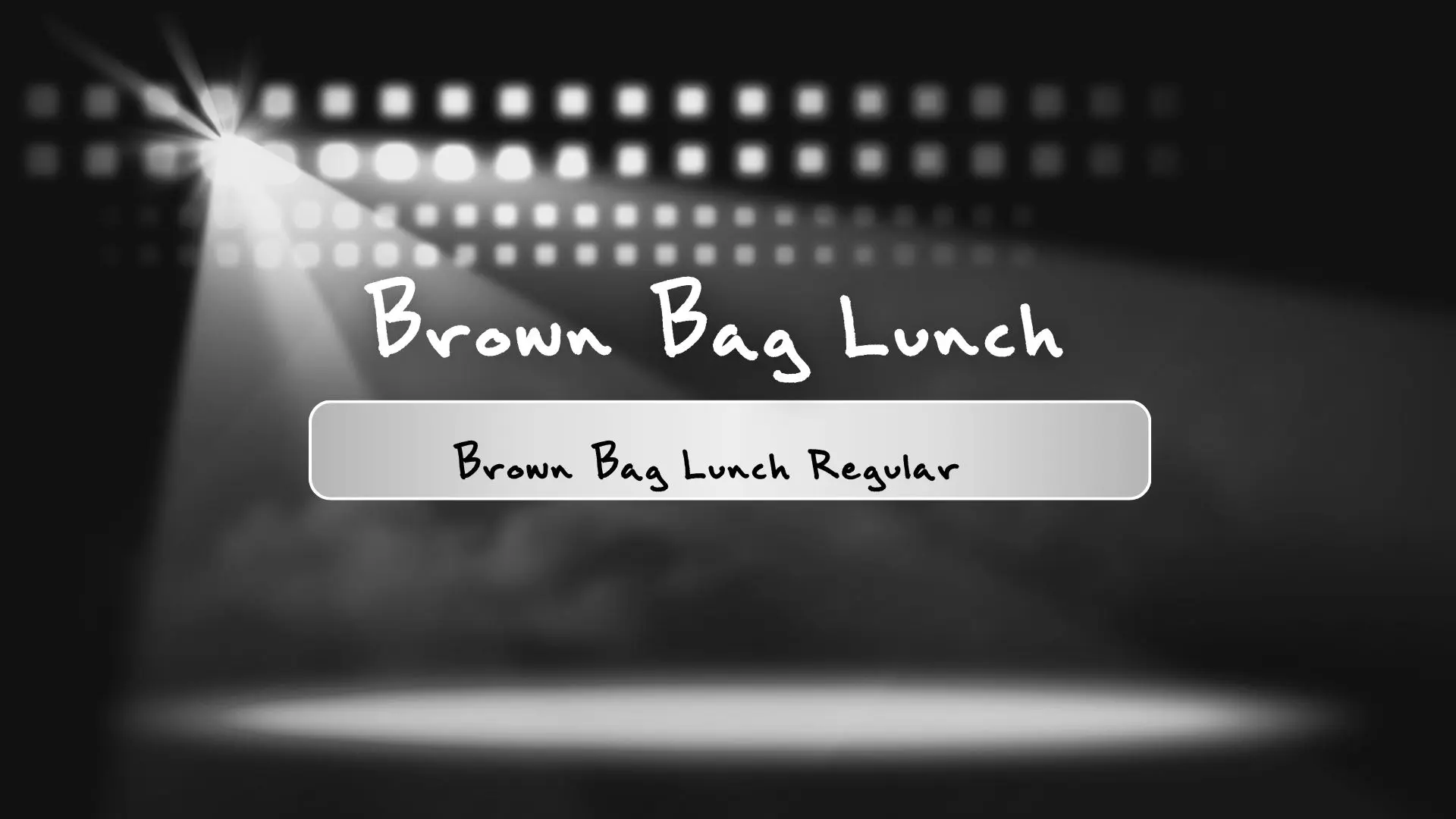
The font Brown Bag Lunch Regular, designed by Logan Kruger, falls under the Display category & Brown Bag Lunch font family. Its smooth, flowing letterforms make it a versatile choice for projects that require both elegance and readability. Brown Bag Lunch is particularly well-suited for Packaging, Headlines, Titles, Personal projects, Display and Casual Event Promotion. With its balance of simplicity and decorative appeal, this font brings a polished touch to both personal and professional designs.